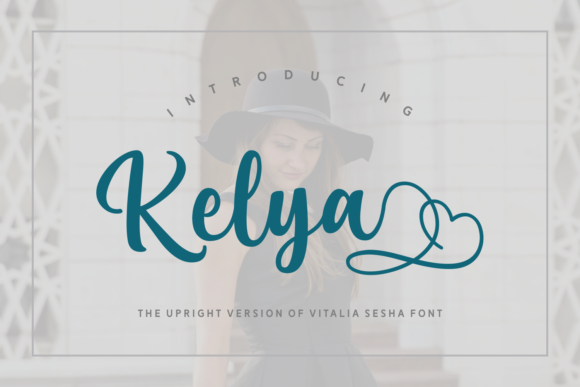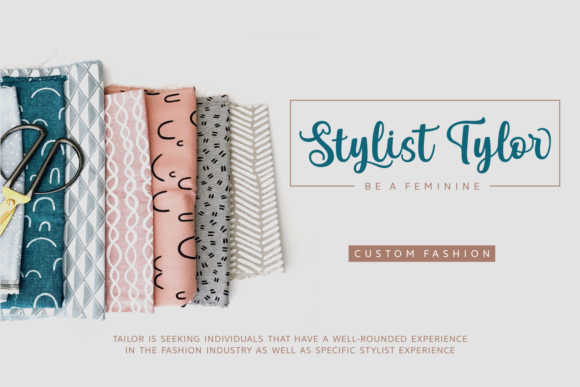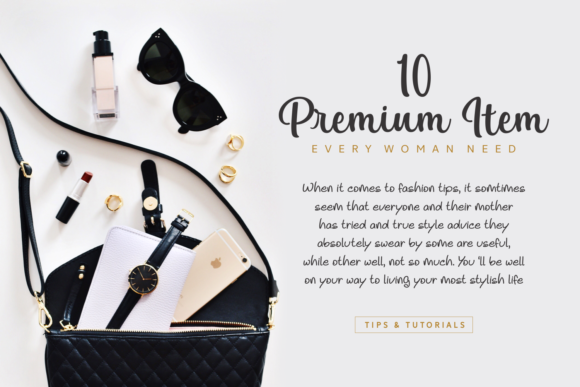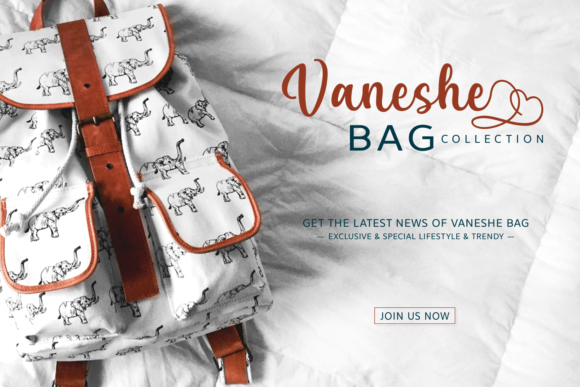
Kelya Font
About Kelya Font
Kelya is a stunning decorative handwritten font with a unique look & feel, allowing you to create eye catching designs in an instant.
Turn any project into something unique with this calligraphy-style font.